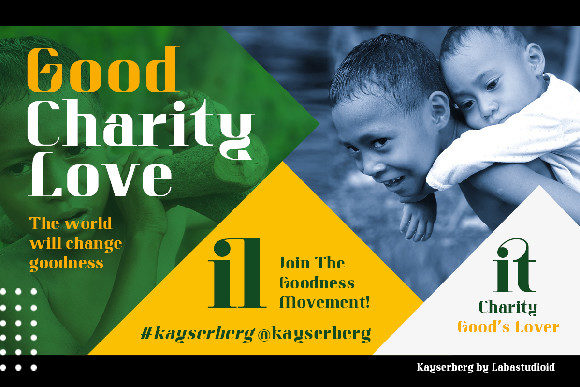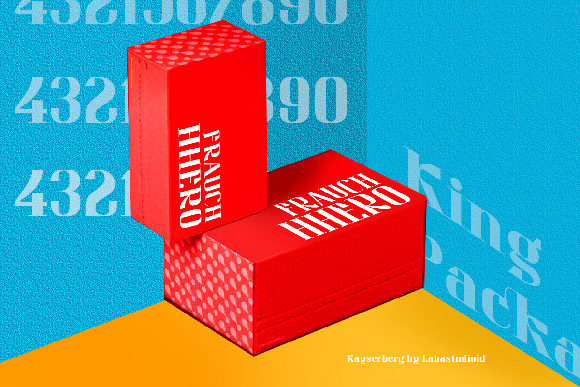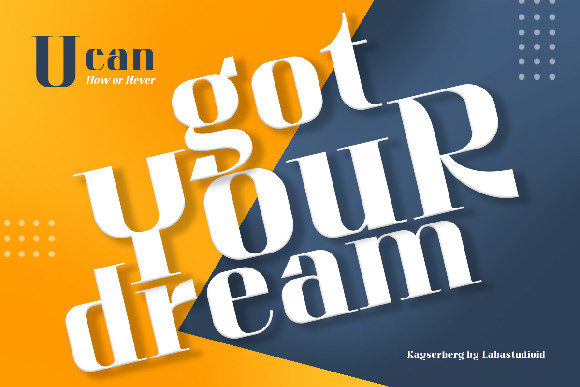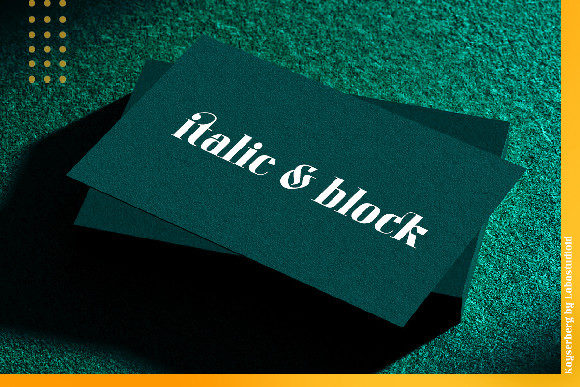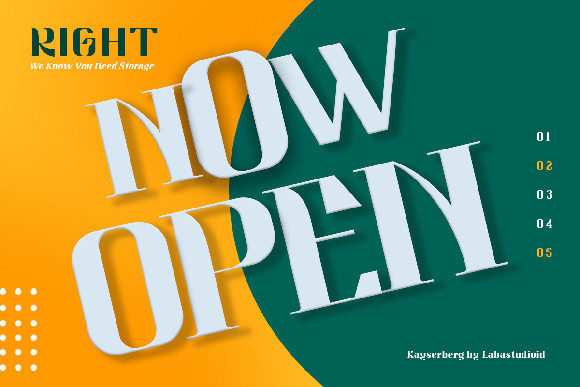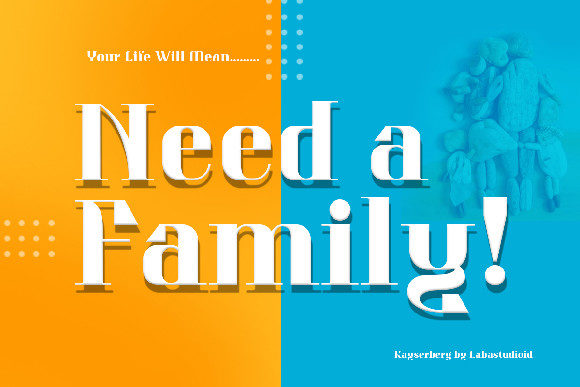
Introduction to Kayserberg Font
Kayserberg is a bold and assertive serif font.
This font is imposing and features uniquely shaped letters, and as a result, it will easily match a wide range of creations that require a distinct touch .
Key Features of Kayserberg Font
Why Choose Kayserberg Font?
Kayserberg Font offers exceptional quality and versatility, making it a valuable addition to your design toolkit. Whether you’re creating for personal projects or commercial use, Kayserberg Font delivers professional results.